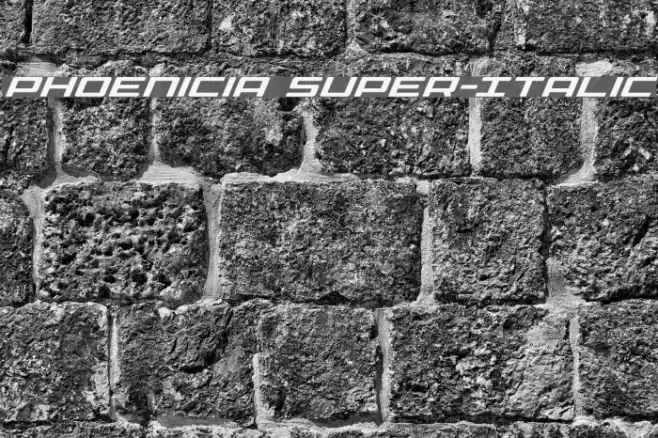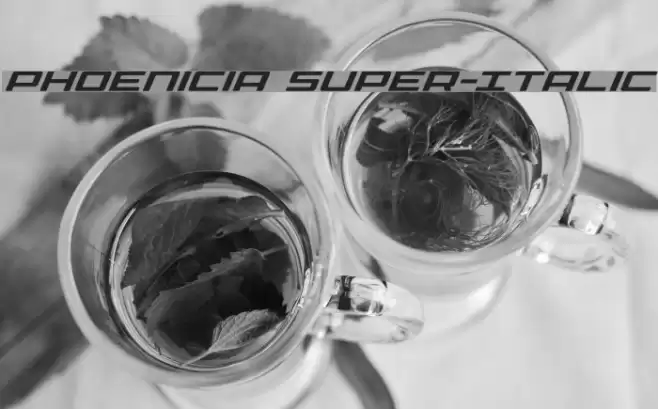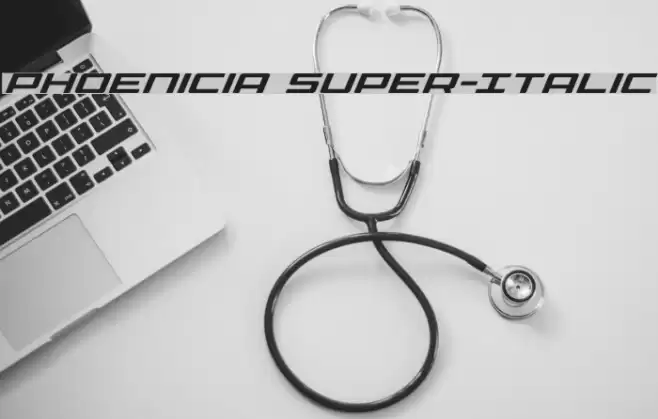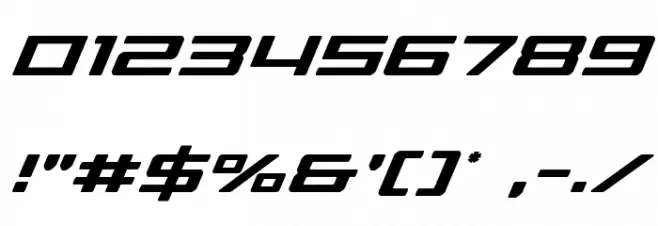
Phoenicia Super-Italic Font
Phoenicia Super-Italic Description
This font features a sleek, italicized style with a futuristic and dynamic appearance. The characters are slightly slanted, giving a sense of motion and speed. The design is clean and modern, with sharp edges and a geometric structure. The uppercase and lowercase letters maintain a consistent style, while the numbers and special characters complement the overall aesthetic. The font's boldness and angularity make it stand out, suitable for projects that require a strong and contemporary look.
A sleek, italicized font with a futuristic and dynamic style from Uncategorized fonts.
- Proposed Projects: Ideal for branding, technology-related designs, sports team logos, and modern advertising campaigns.